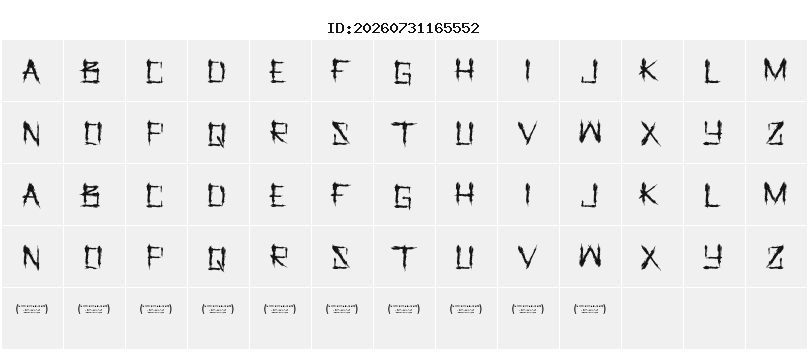
• Font Name: Let us Pray
• Designer: Chris Vile
• Manufacturer: Font Monger
• Description: Let us Pray Regular is a font by Font Monger, designed by Chris Vile in 2014.